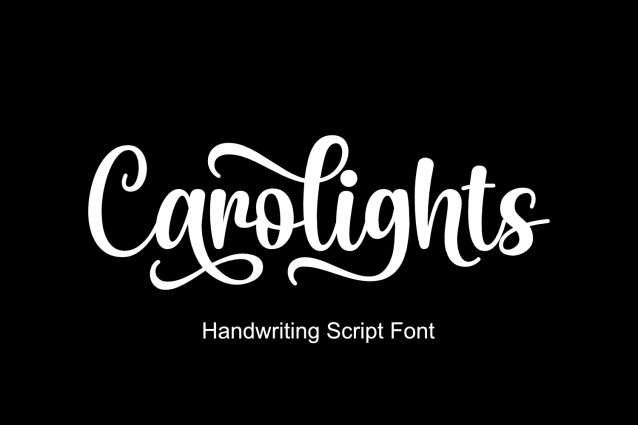
Carolights Font is a simple and friendly handwritten font. Its natural and unique style makes it incredibly fitting to a large pool of designs. The only limit is your imagination!